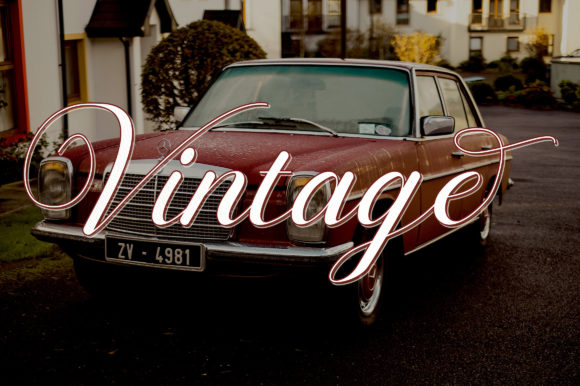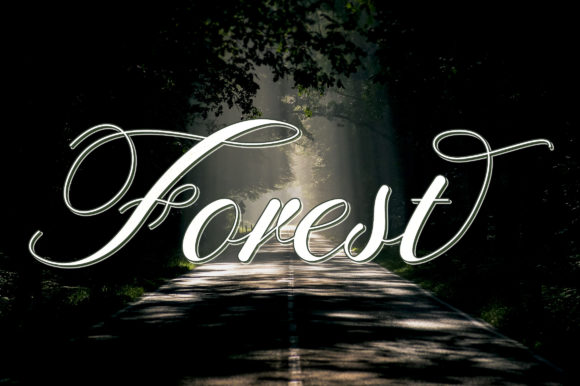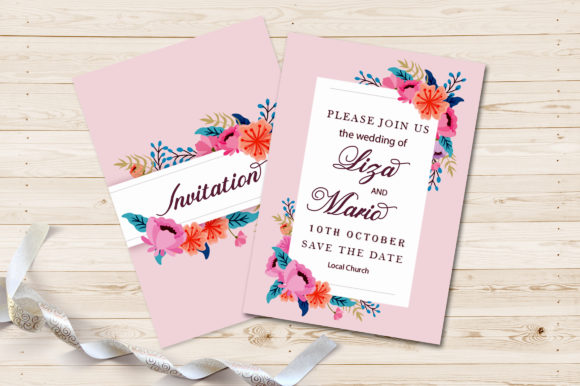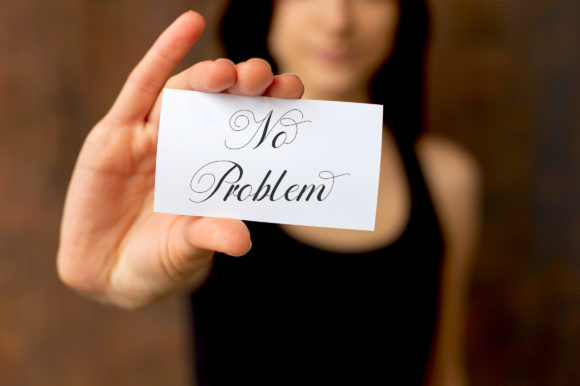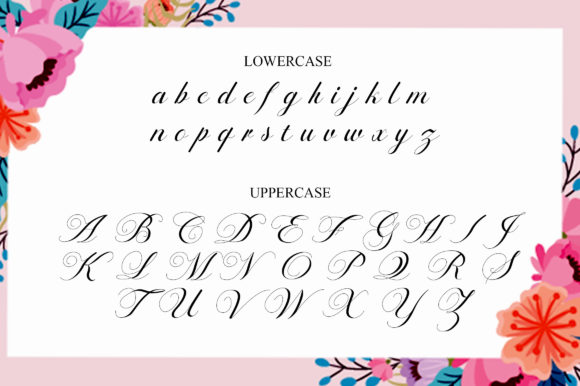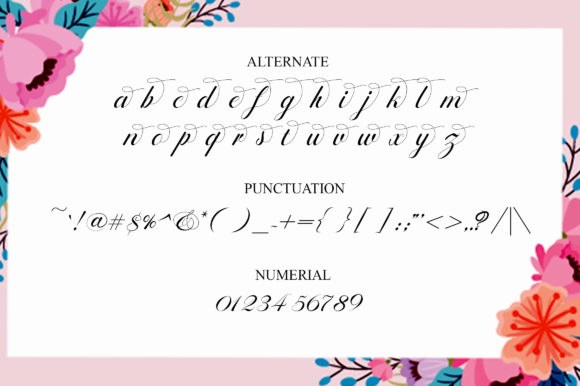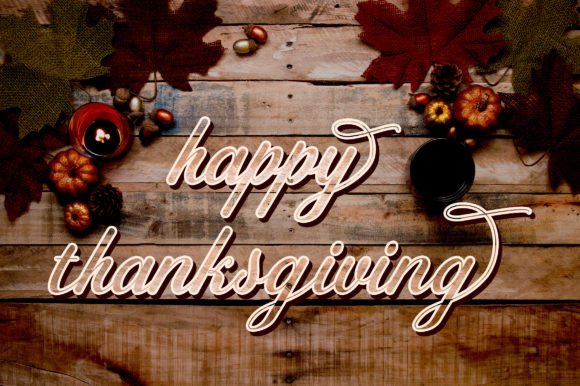
Quentin Font
About Quentin Font
Quentin is a modern script font made for packaging products, mockups, invitation cards, thanksgiving and all aspects that require high quality details. This font is PUA encoded which means you can access all of the glyphs and swashes with ease!